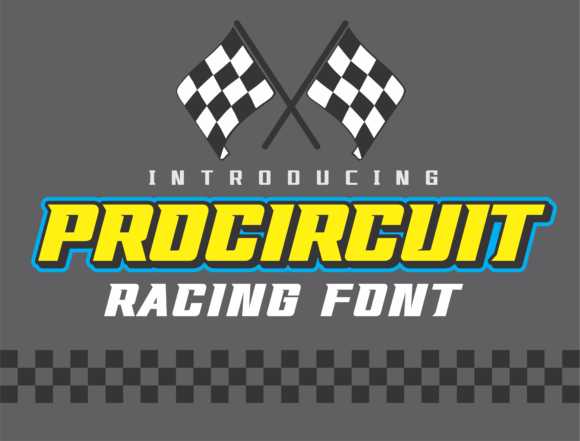
Introducing Pro Circuit Font, a captivating and versatile addition to your fonts' collection. Crafted with precision by siinsticker, this modern and assertive racing styled display font is the ultimate choice for those seeking the best font for large screens.
Pro Circuit Font is more than just a typographic tool; it is a powerhouse that captivates the eyes and stirs emotions. With its sleek and dynamic design, this font is perfectly suited for a wide range of projects, from branding and advertising to web design and social media graphics.
When it comes to making a lasting impression, Pro Circuit Font reigns supreme. Its bold and commanding presence demands attention, instantly grabbing the viewer's gaze. Whether you're designing a logo for a motorsport event or creating eye-catching headlines for a racing magazine, this font is your winning ticket.
Unleash your creativity with Pro Circuit Font and watch your designs come to life. Its carefully crafted letterforms exude confidence and strength, making it the perfect choice for conveying powerful messages and creating impactful visuals. Let your imagination run wild as you explore the endless possibilities this font offers.
Not only does Pro Circuit Font excel in aesthetics, but it also boasts exceptional legibility, even on larger screens. Its clean lines and carefully balanced proportions ensure that every character is easily discernible, allowing your audience to effortlessly absorb the message you wish to convey.
When you choose Pro Circuit Font, you're not just adding a font to your collection; you're gaining a valuable asset that will elevate your designs to new heights. The versatility of this font ensures that it can seamlessly adapt to any project, enhancing its visual appeal and leaving a lasting impression on your audience.
Experience the thrill of Pro Circuit Font and let its powerful energy infuse your designs with excitement and creativity. Don't settle for ordinary fonts when you can have the extraordinary. Take your designs to the next level and leave a lasting impression with Pro Circuit Font.